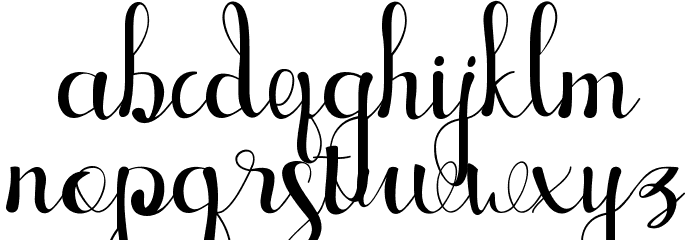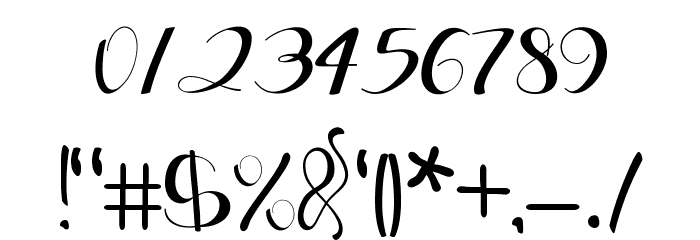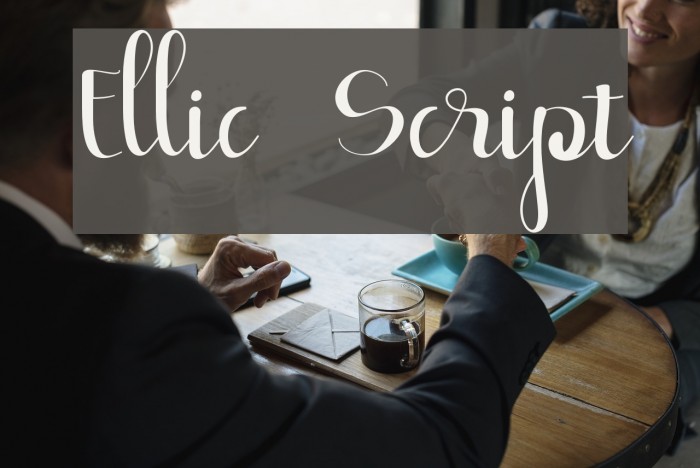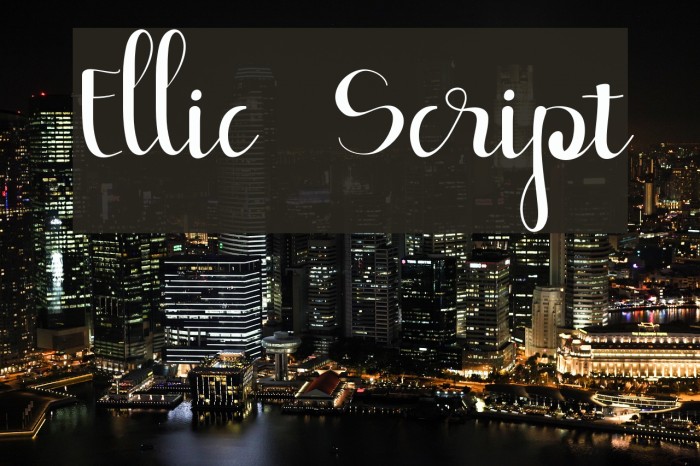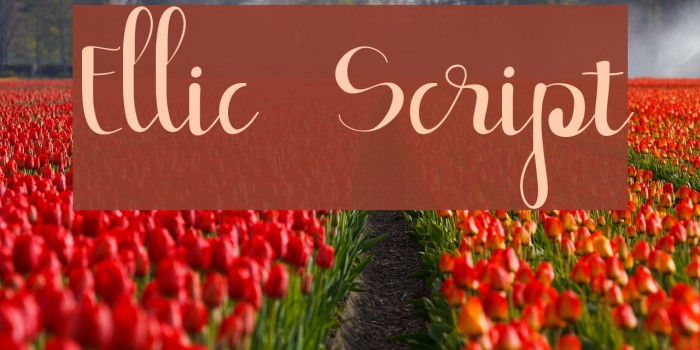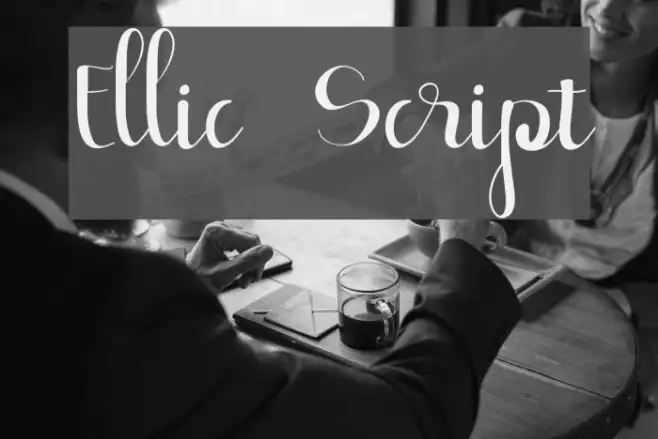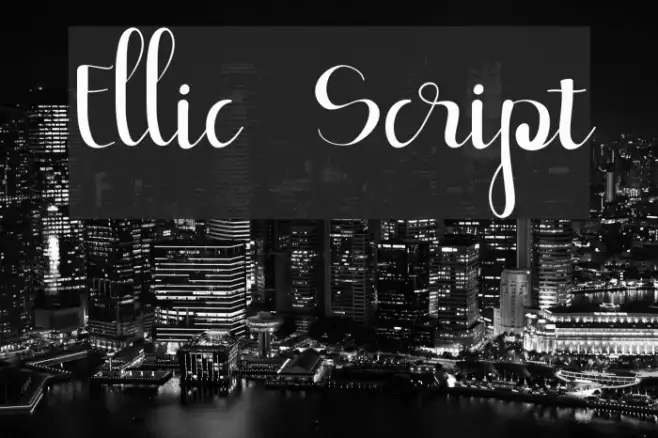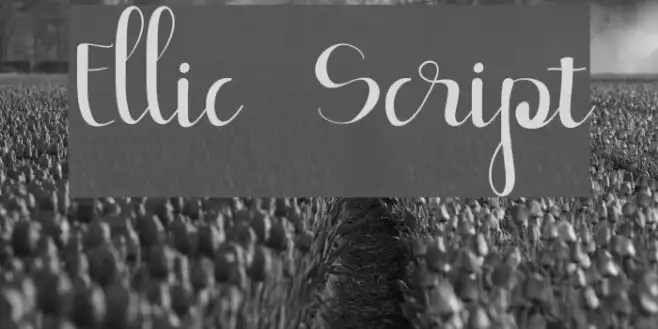
Ellic Script Font
This font features a flowing, elegant script style with a modern twist. The characters are interconnected with smooth, sweeping curves that give it a graceful and sophisticated appearance. The uppercase letters are bold and prominent, while the lowercase letters maintain a delicate balance with their slender strokes. The numerals are consistent with the overall style, offering a cohesive look. Special characters are designed with the same attention to detail, ensuring they blend seamlessly with the rest of the font. The overall design is both decorative and functional, making it suitable for a variety of creative projects.
A modern, elegant script font with flowing, interconnected characters.
- Proposed Projects: Ideal for wedding invitations, branding, greeting cards, and elegant logos.
- Use Case: Logos, Invitations, Decorative text